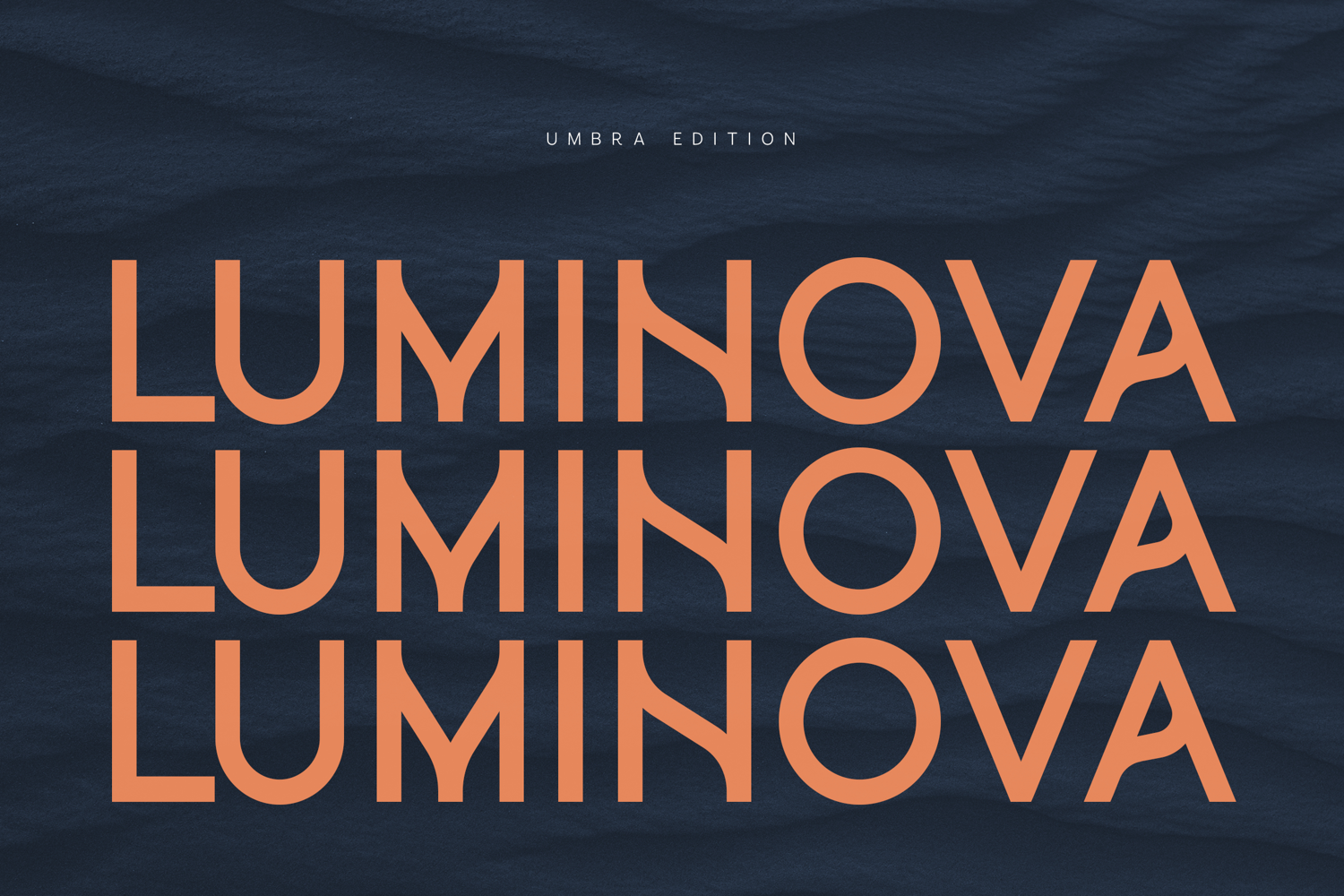
Luminova Modern Clean Sans Serif Font
Luminova is a modern sans serif typeface designed with clarity, balance, and versatility in mind. Built with clean geometric forms and smooth curves, this font delivers a contemporary aesthetic that works perfectly across branding, editorial design, and digital interfaces.
The typeface combines minimalist construction with subtle personality, making it ideal for designers who need a strong yet neutral typographic foundation. Whether used in bold headlines or refined layouts, Luminova maintains excellent readability and a polished modern appearance.
Luminova includes uppercase and lowercase characters, numerals, punctuation, and extended multilingual support, allowing designers to work confidently across international projects.
This typeface is perfect for modern design projects including branding systems, editorial layouts, packaging, posters, websites, and social media graphics.
• Branding & Logo Design
• Editorial & Magazine Layouts
• Posters & Headlines
• Packaging Design
• Website Typography
• Advertising Graphics
• Social Media Content
• Modern Design Projects
Luminova brings together clean geometry, contemporary style, and professional versatility, making it a valuable addition to any designer’s font library.